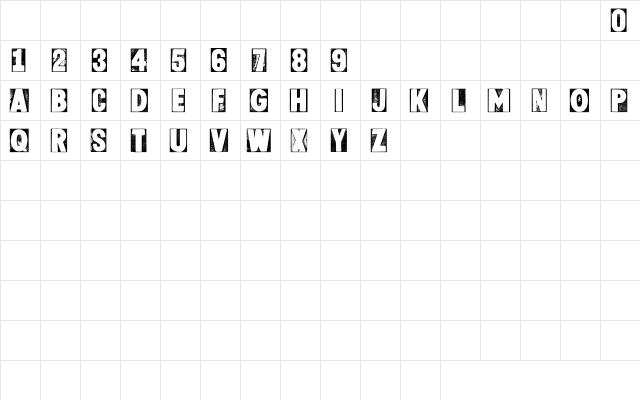
CF Letterpress Type Two PERSO Regular
| Foundry | Cloutierfontes |
| Designer | Steve Cloutier |
Design Context for CF Letterpress Type Two PERSO Typeface
CF Letterpress Type Two PERSO takes a measured approach to typography — its balanced proportions and neutral character make it a reliable workhorse for both digital and print work.